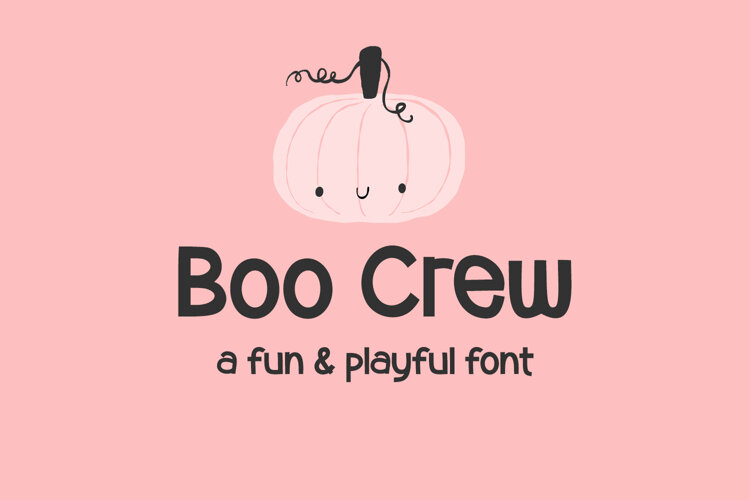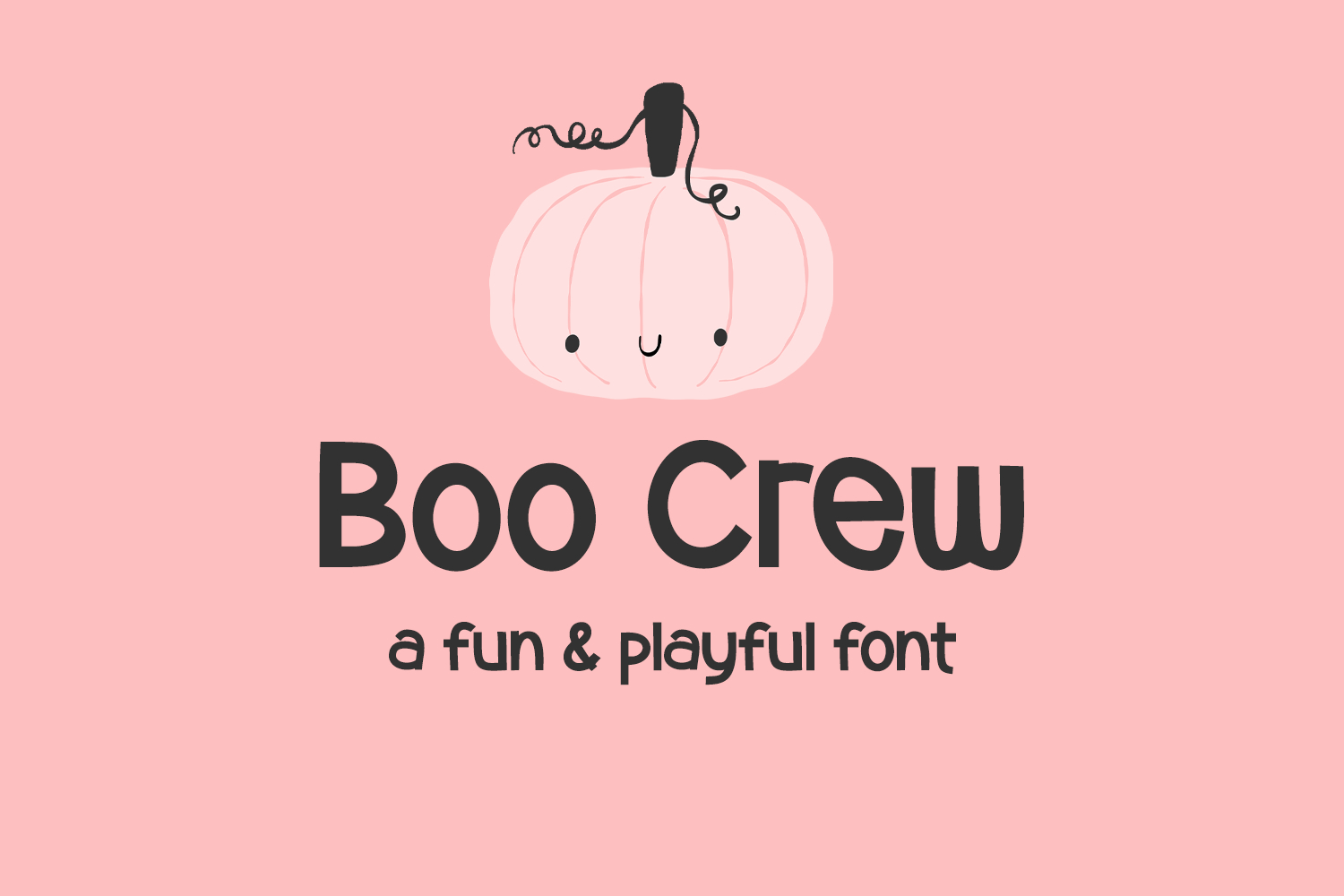
Boo Crew Sans
Boo Crew Sans is a very neat & legible sans font. It has block letters, and looks great in normal case or in all caps. Because Boo Crew is legible, it would be a great fit for children’s Halloween projects or even in a classroom. Use Boo Crew for Halloween crafts, shirts, classroom projects, stickers, and more.